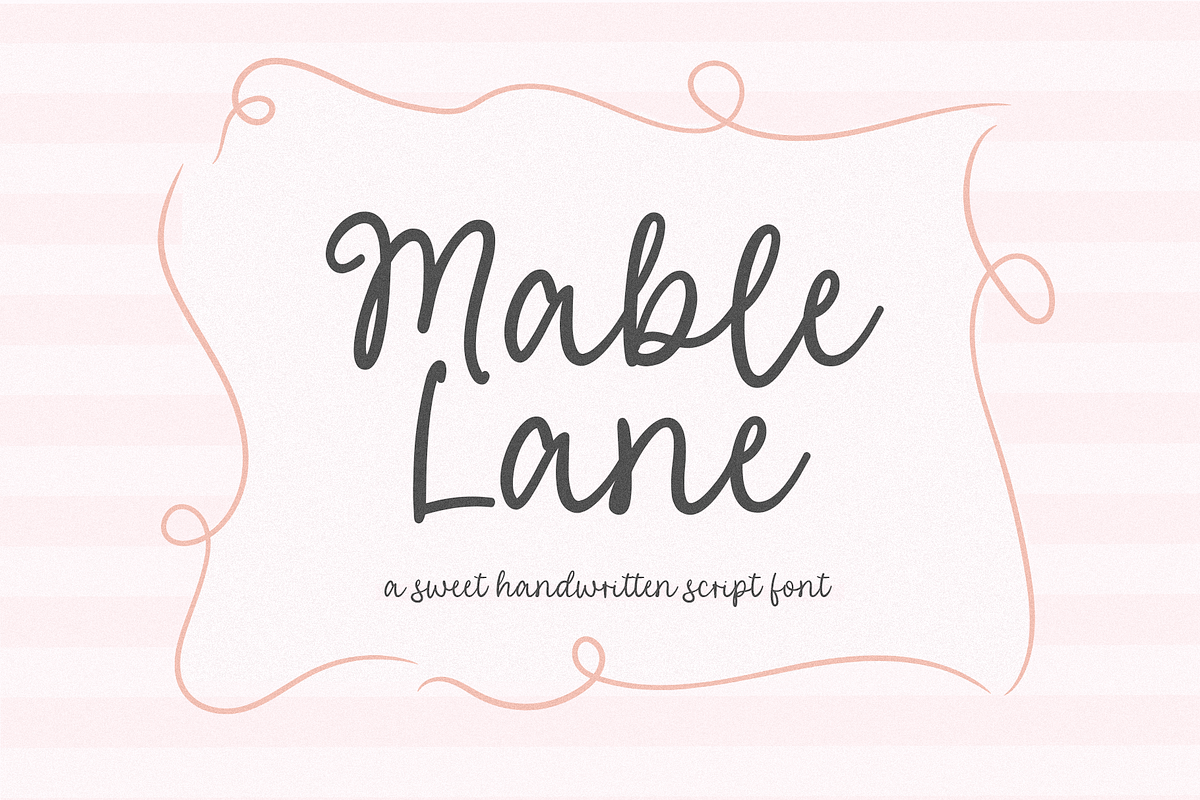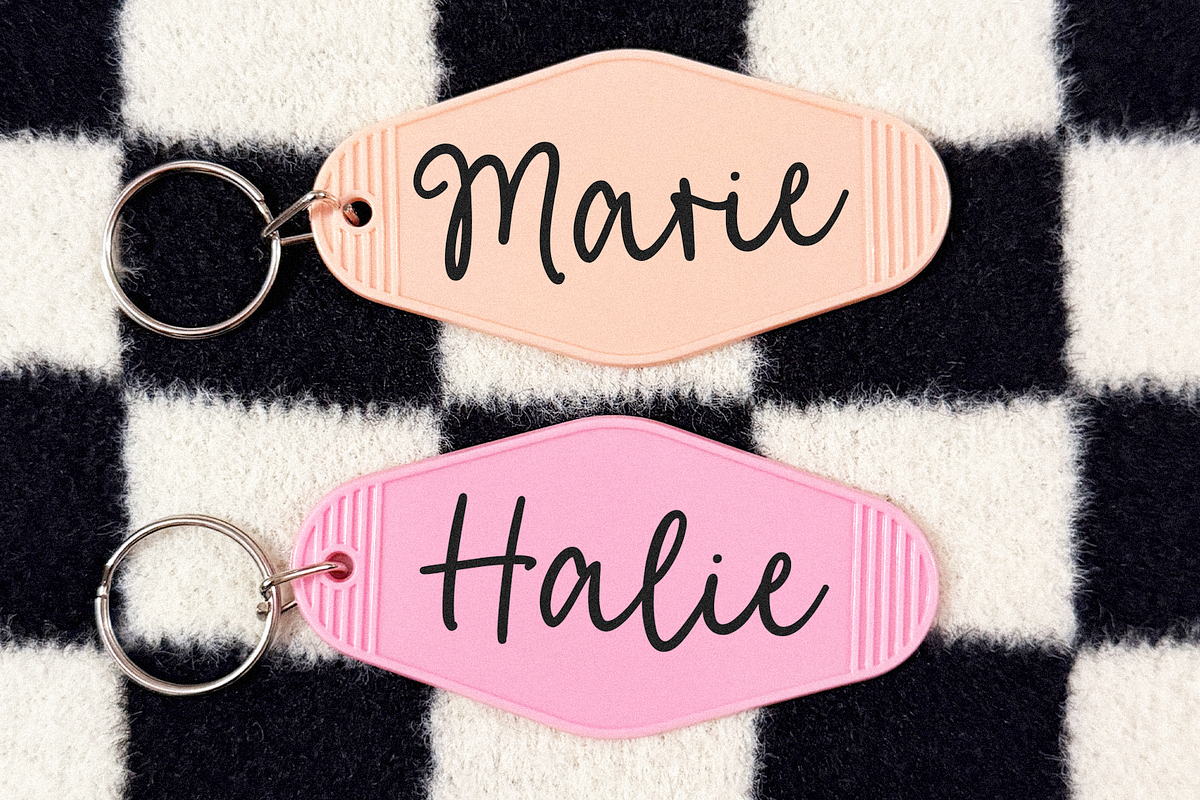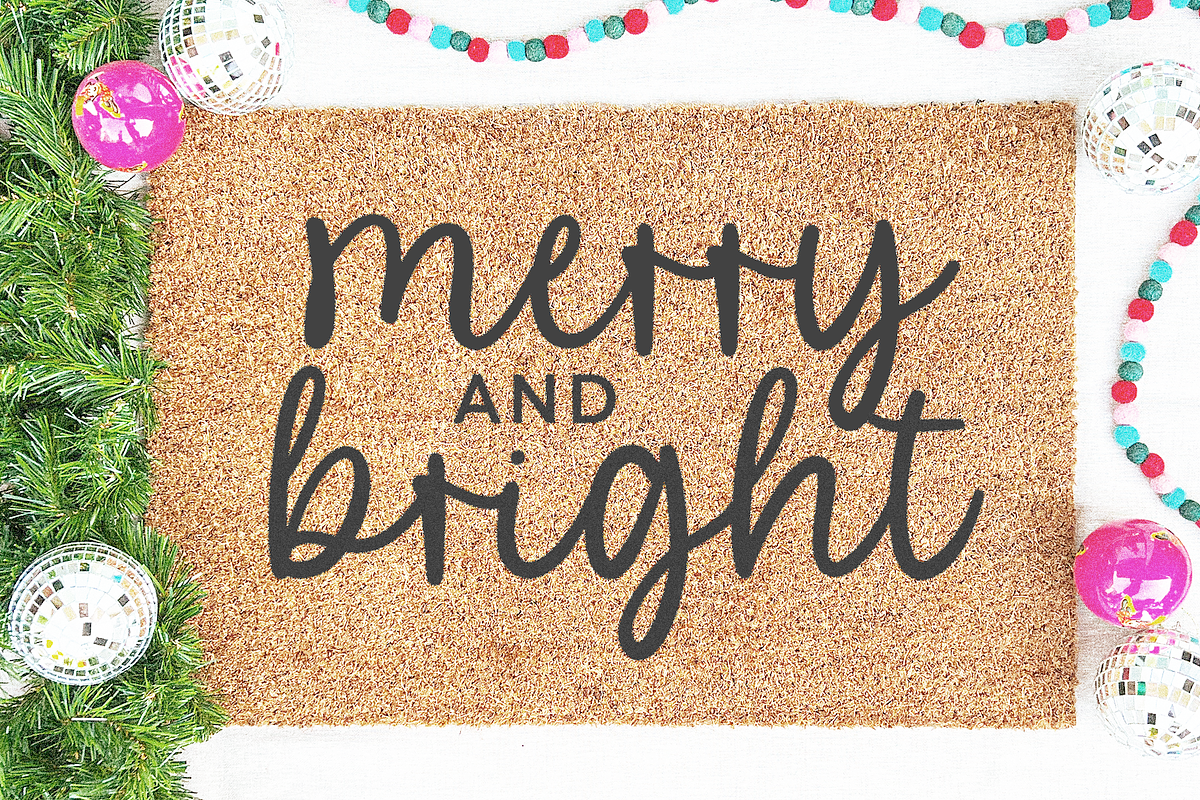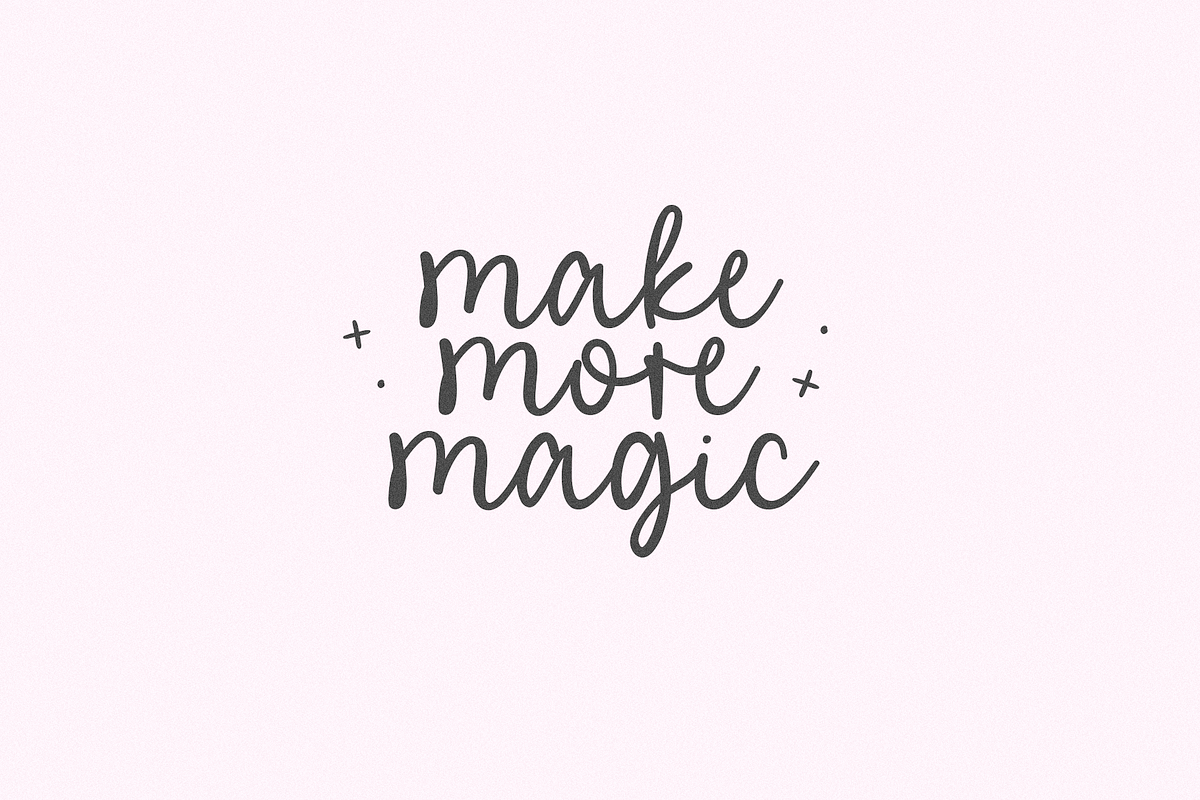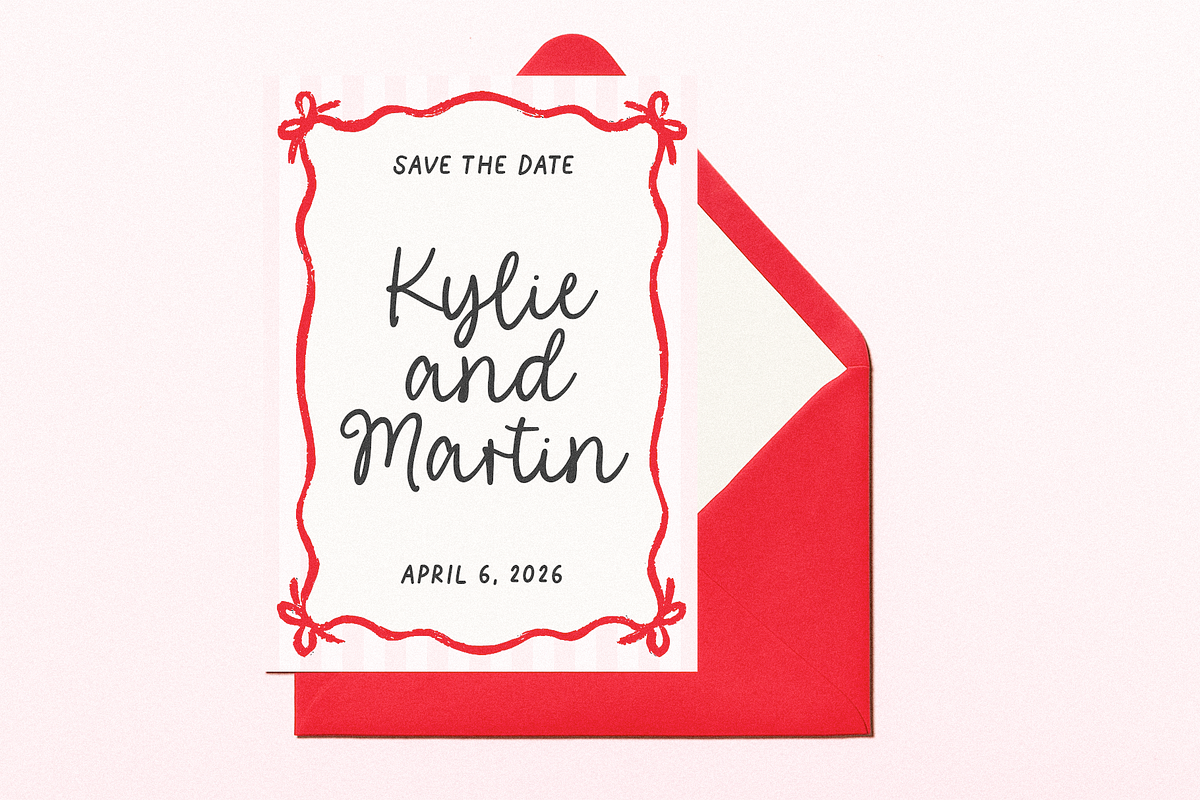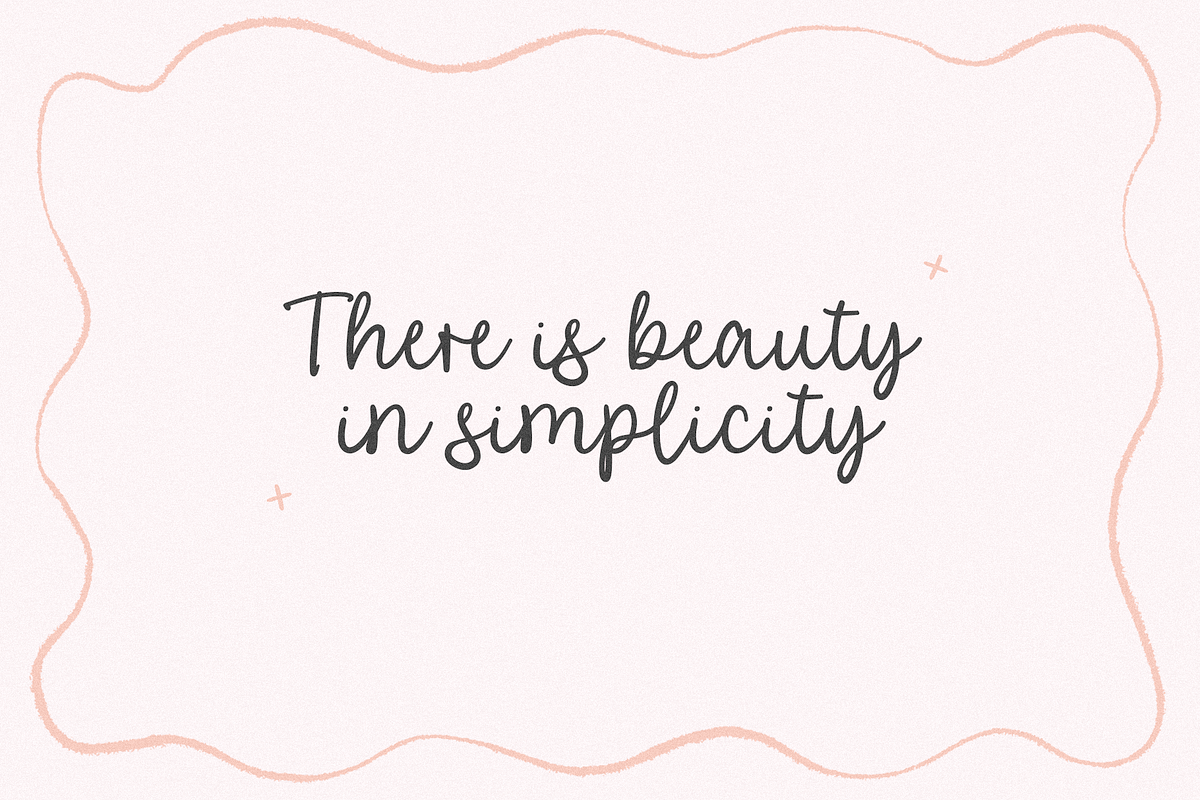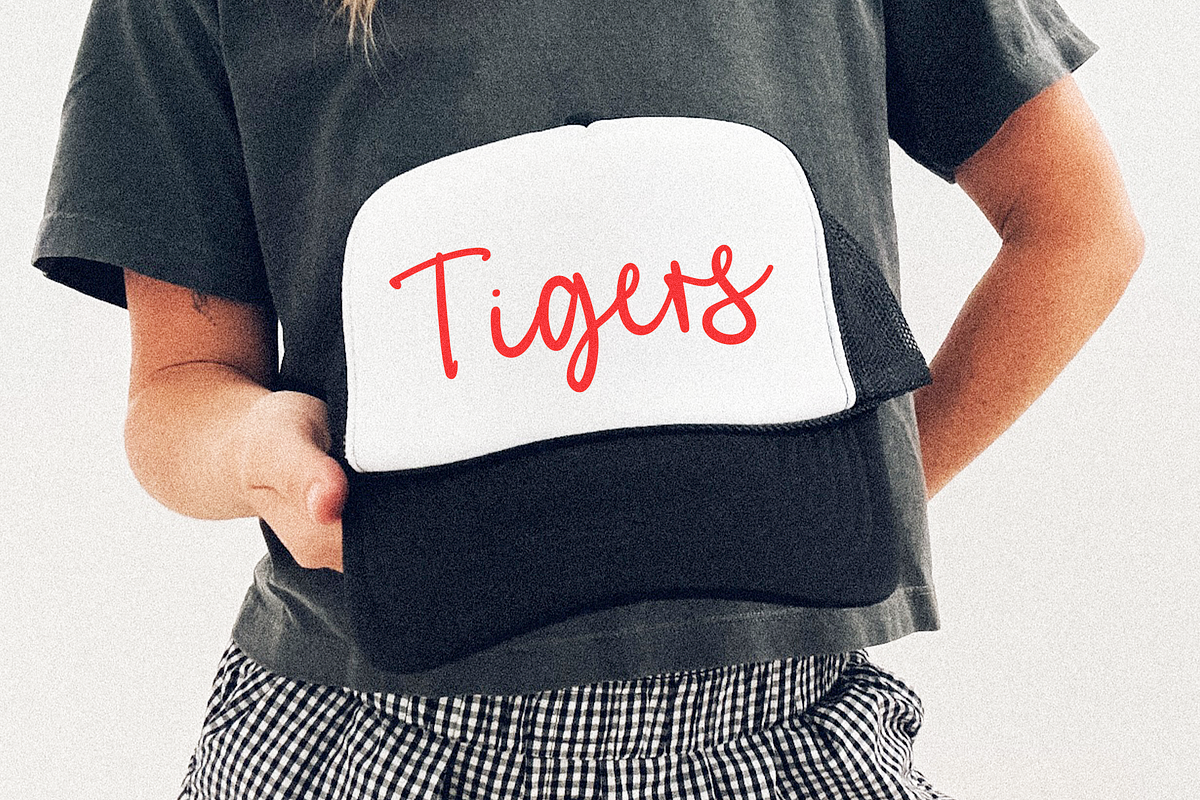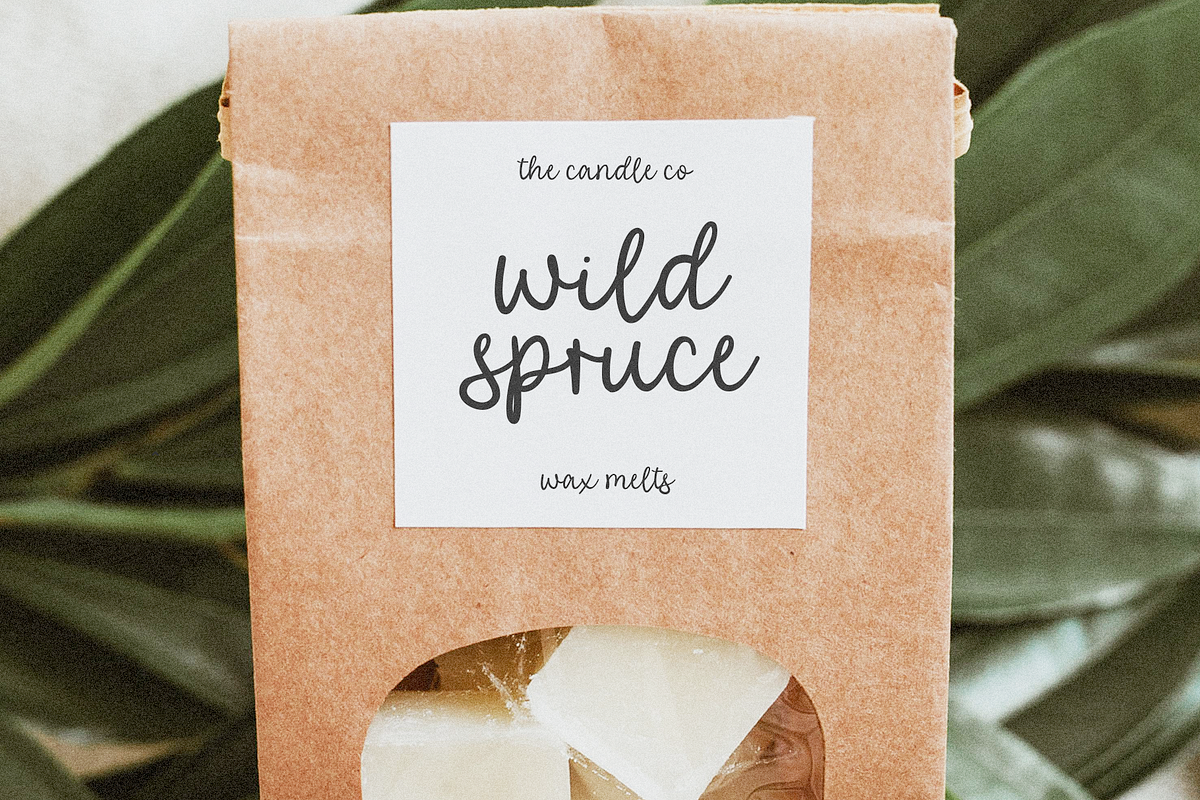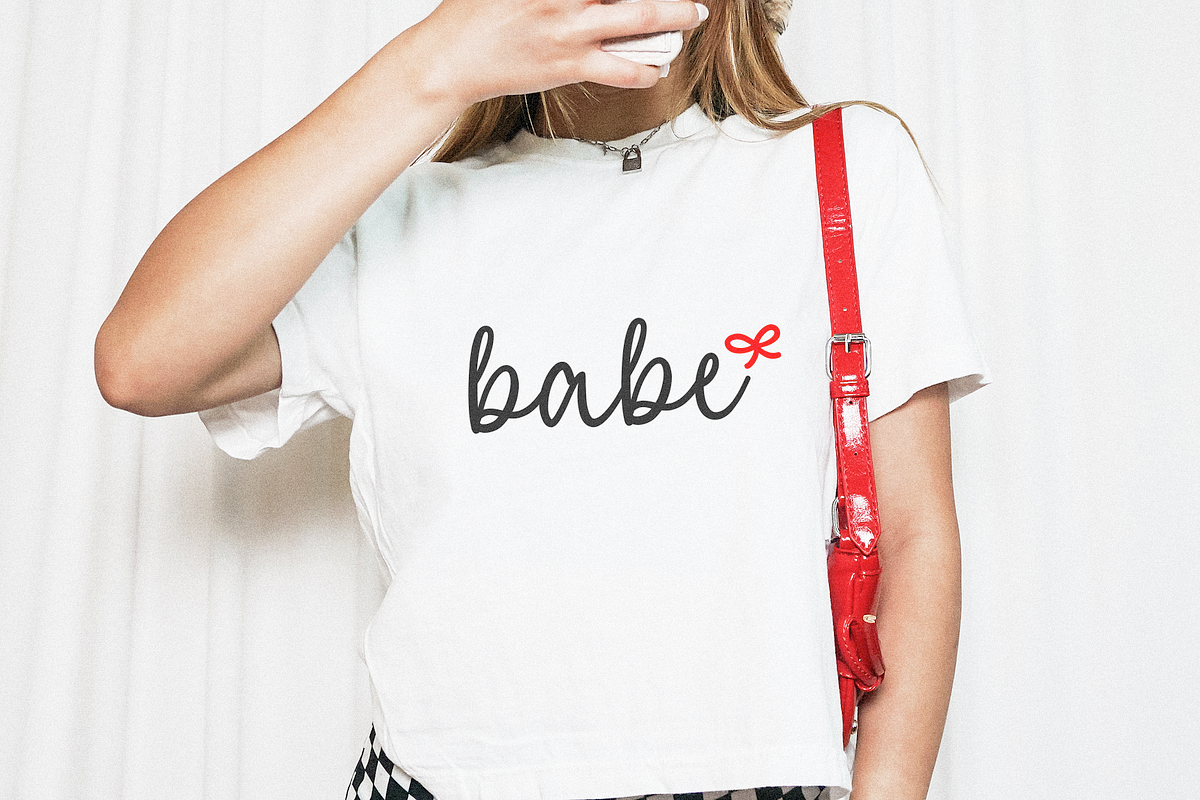
Mable Lane | Handwritten Script Font
Mable Lane is a cute handwritten script font.
This font is perfect for wedding decor, invitations, canva projects, cricut, logos, teachers, goodnotes, planners and more!